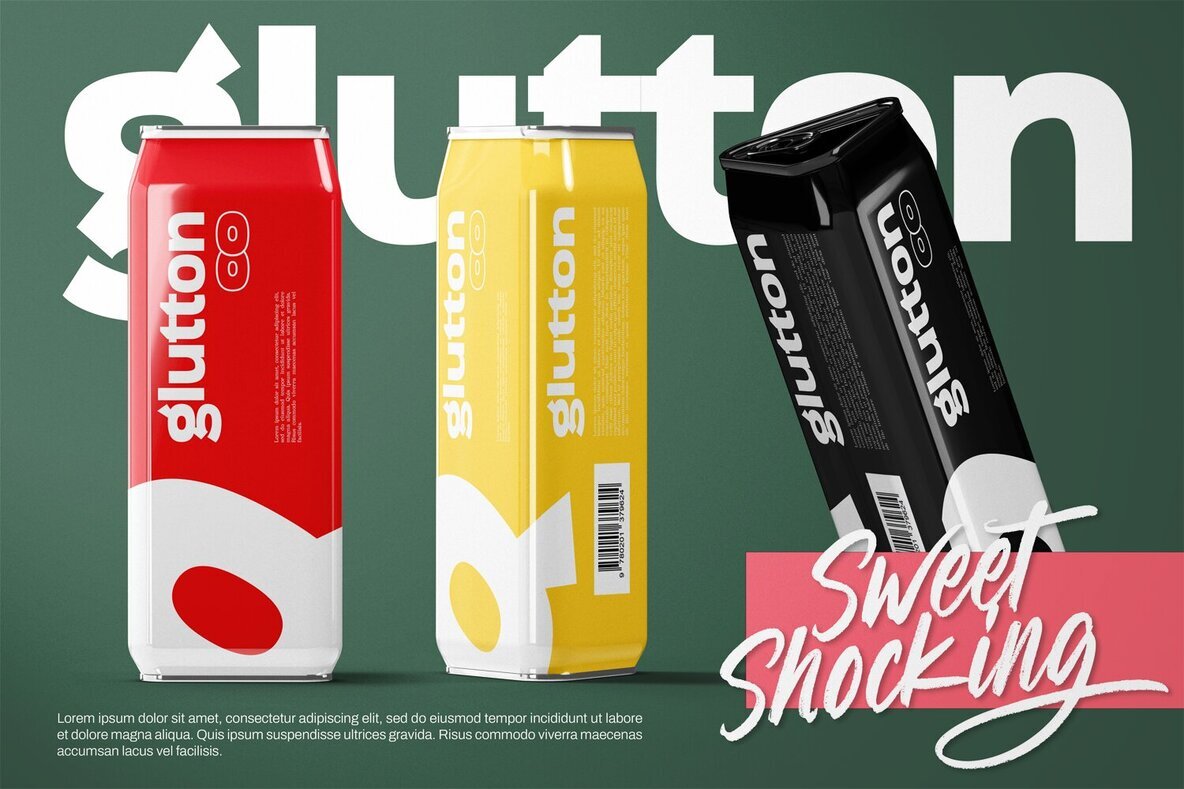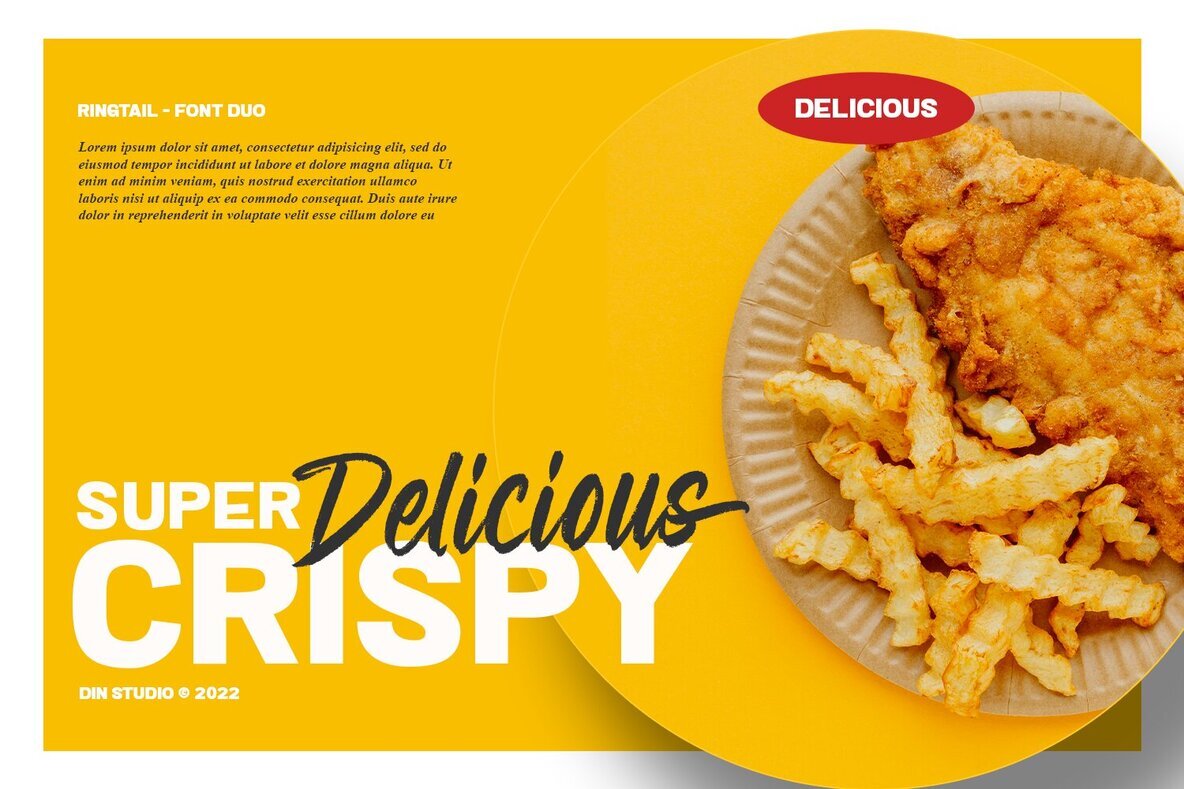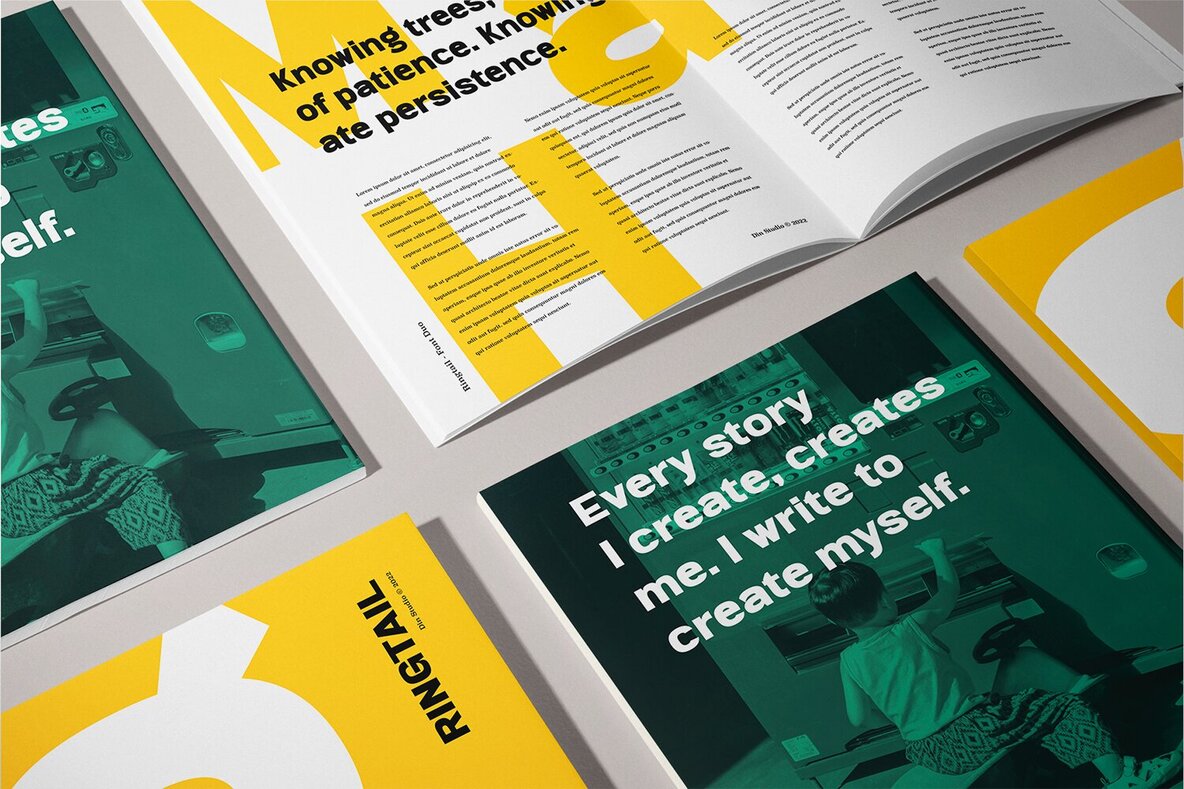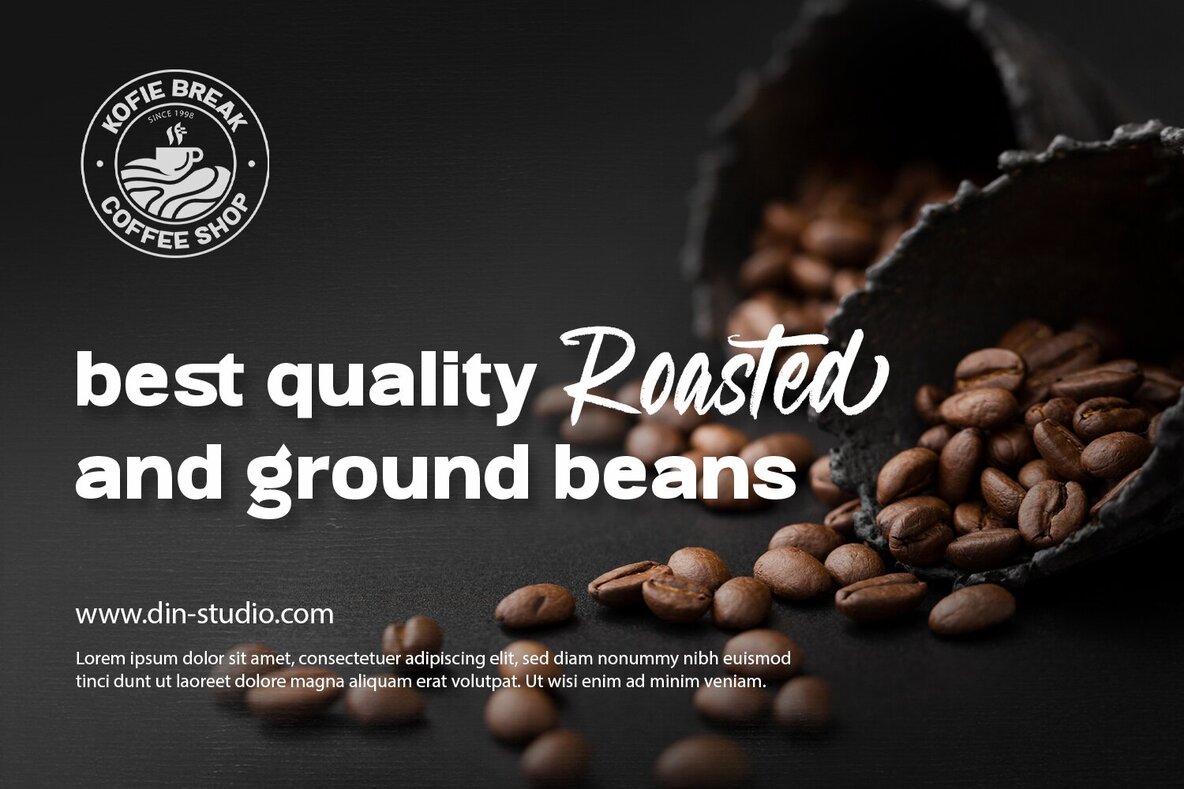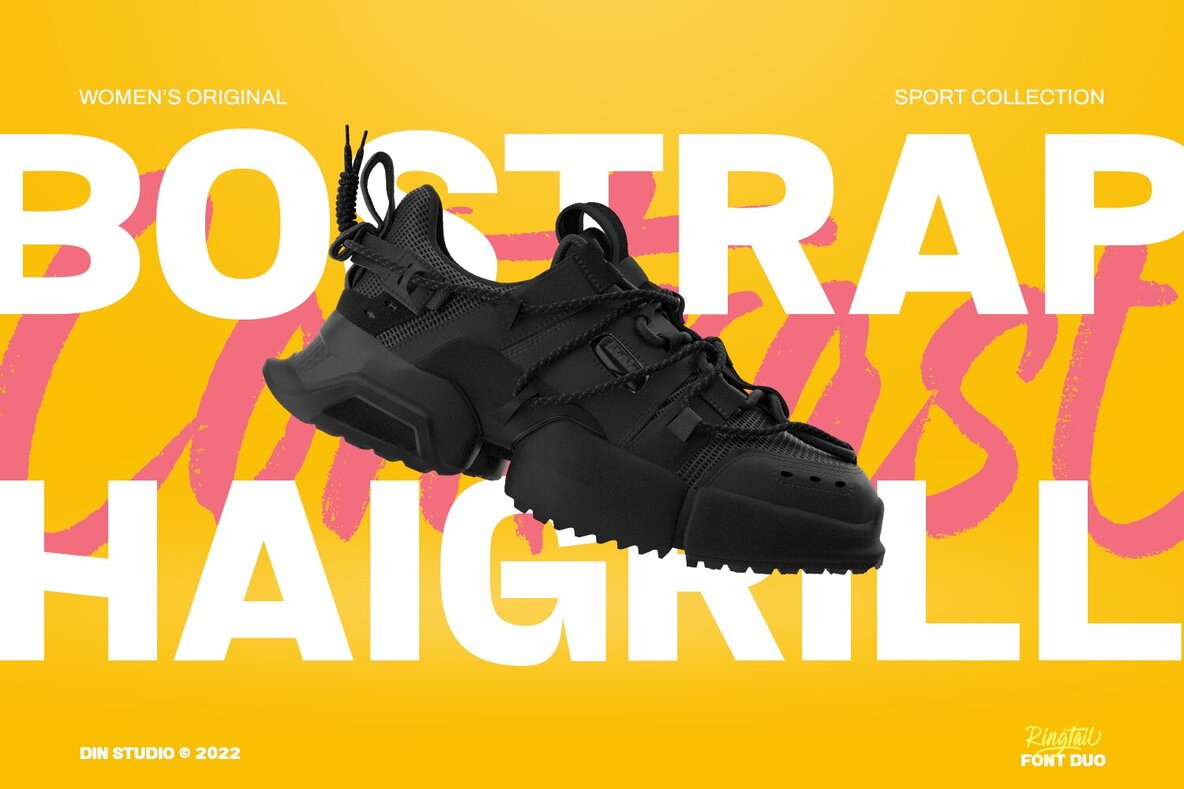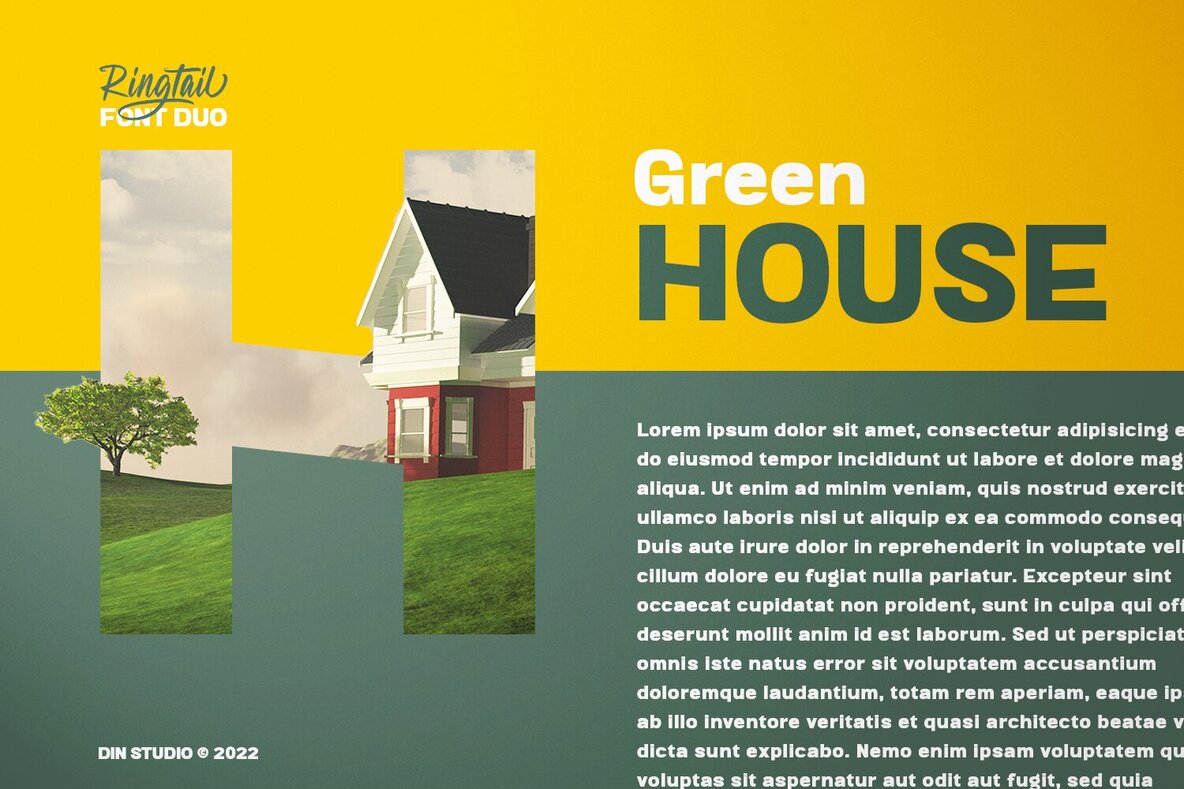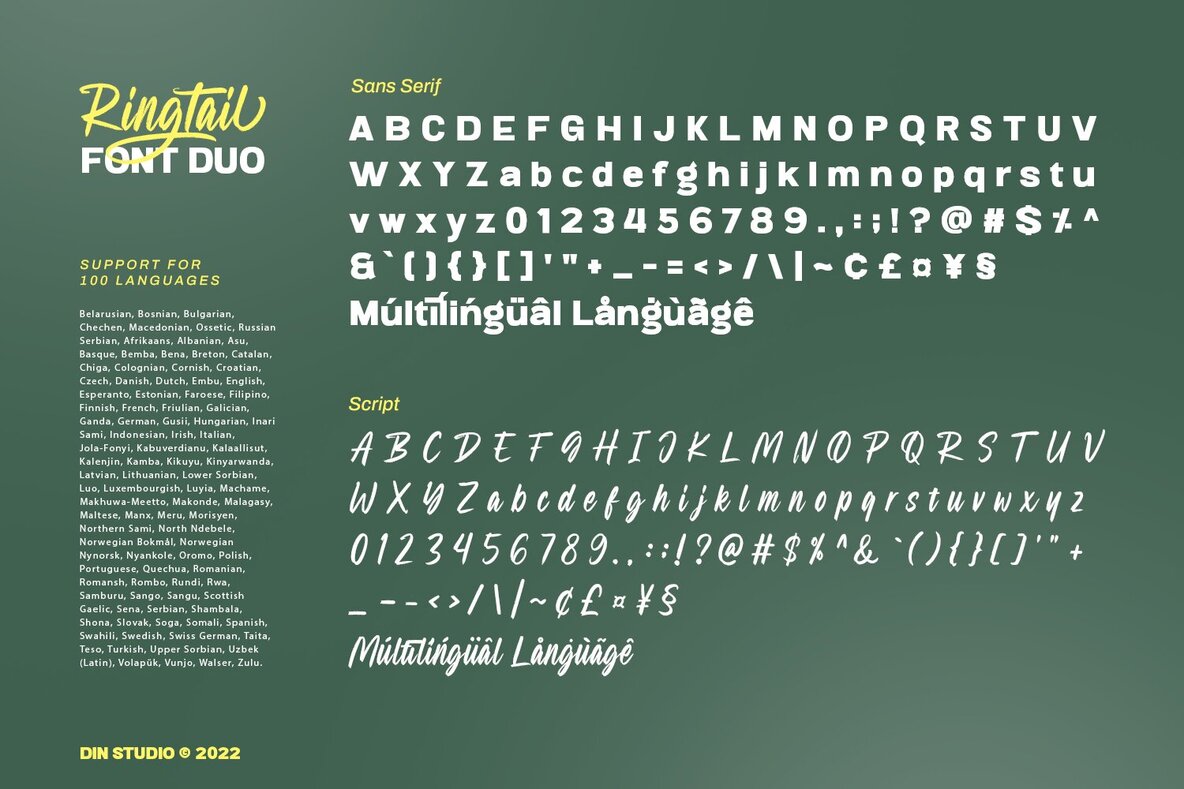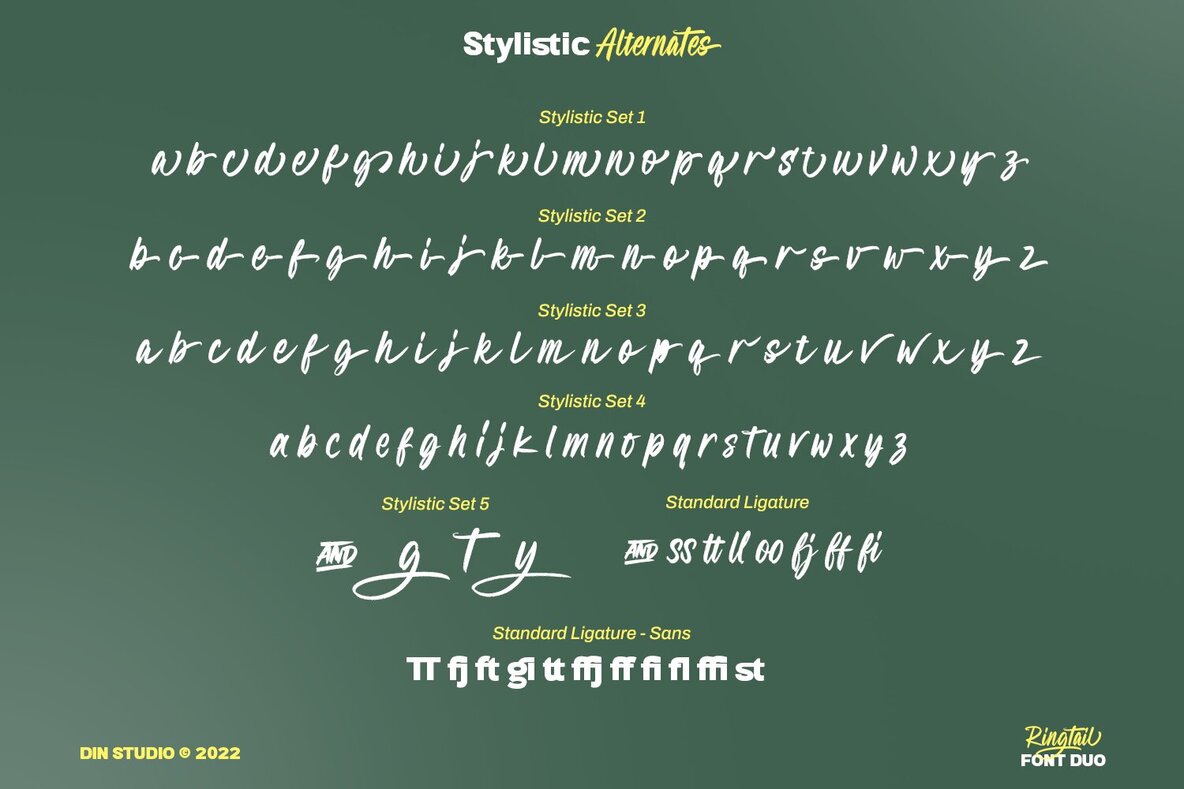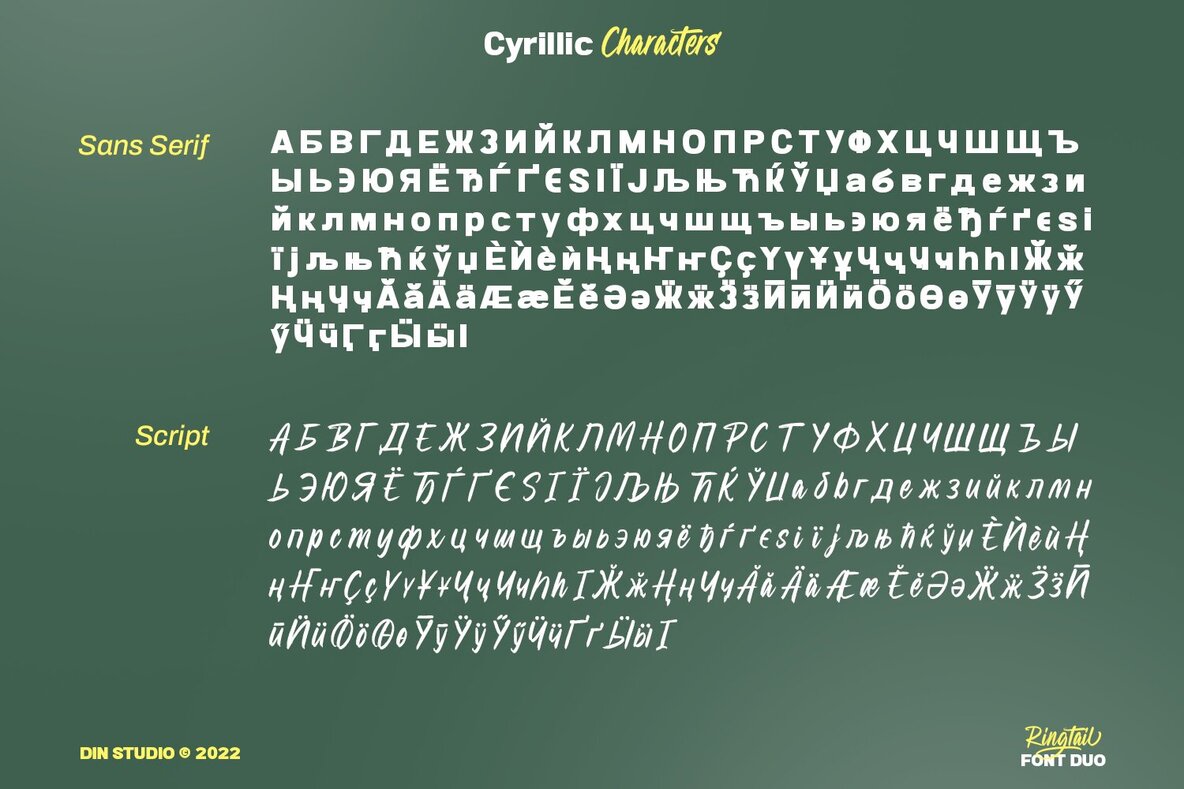
Ringtail Font
Every font designer has their own favorite font type, which you do not need to find as it takes too much time to figure it out for you until you can match it with a perfect font. Ringtail has the best answer to your needs. Ringtail is a font containing two font types to use together or separately: sans serif and script fonts. Sans serif font has firm, modern, simple looking lines without curvy edges. Meanwhile, the script font has curvy lines in water paint or ink textures. The textures are extra lines added to each letter and to the background letter patterns. A textured script font looks more artistic and more detailed than the other ordinary script fonts to show elegant, romantic impressions in your designs. Additionally, script font can be applied for adding extra visual contrasts to designs with sans serif font. Features: Ringtail fits best for various design projects, such as brandings, posters, banners, logos, magazine covers, quotes, headings, printed products, invitations, name cards, merchandise, social media, etc. Find out more ways to use this font by taking a look at the font preview.